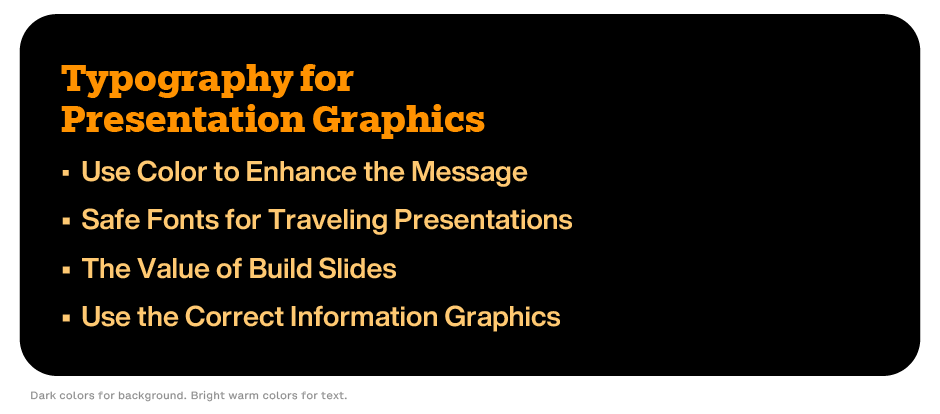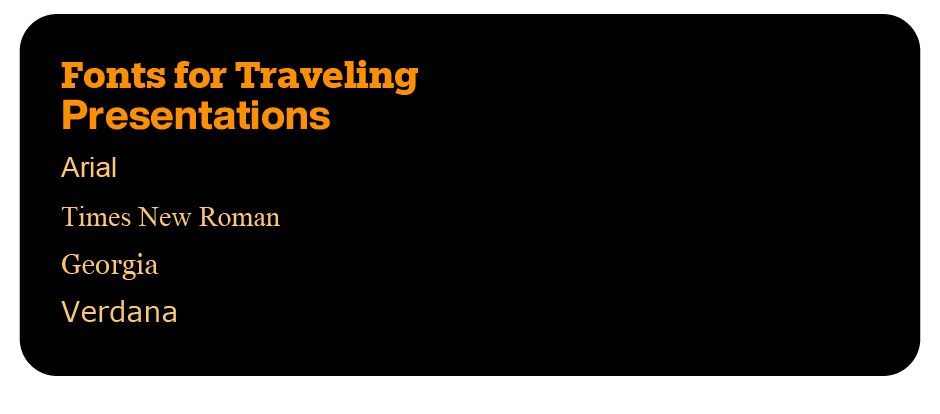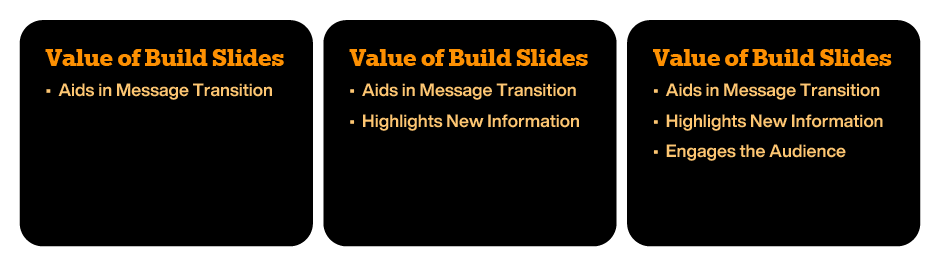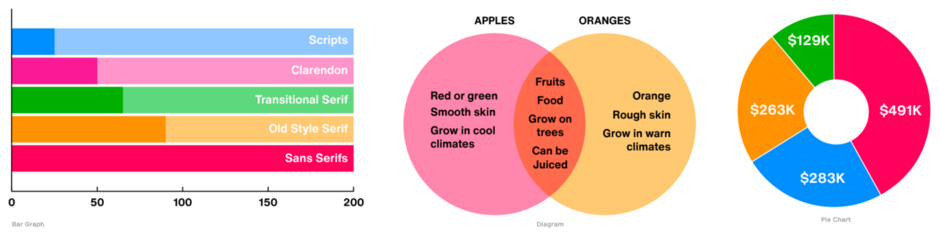
Manual: Typography for Presentation Graphics (Part Two).
“ Limit the palette to two or three colors. ”
The second half of “Typography for Presentation Graphics” addresses:
• Use of color to enhance the message
• Safe fonts for traveling presentations
• The value of build slides
• Use of the correct information graphics
Color Can Enhance A Message
Choosing colors for slides is just as important as it is for a brochure or product catalog – maybe more so. In presentation graphics, color not only invites the audience into the text, it can augment reading process and aid comprehension.
Background colors define the image-plane, while the colors used for copy should enhance readability. Use dark colors for the background and warm, bright colors for the textual content. Avoid cool colors like light blue and green for backgrounds. They tend to reduce the vitality of your presentation.
Avoid dark colors for textual content because they make it retreat into the background, and reduce contrast, necessary for good readability.
Limit the palette to two or three colors for consistency. More than that, creates visual clutter, and confusing hierarchy.
Fonts for Traveling Presentations
If you will be sending your presentation to others, or giving it on a computer other than your own, use fonts that are universally available across various operating systems and applications. This ensures consistent display in the presentation.
Common safe fonts include:
• Arial: A clean, sans-serif font known for its readability.
• Times New Roman: A classic serif font that’s widely available and professional.
• Georgia: A serif font designed for screen readability.
• Verdana: A sans-serif font specifically designed for clarity at smaller sizes.
Value of Build Slides
A build slide starts with the first major bullet point and shows more major bullet points as the presentation proceeds. This helps to make the transition from one point to the next, and highlights the new content.
Transitions in a build slide can appear in a variety of ways. They should not, however, overpower or distract from the message.
Use The Correct Information Graphics
Diagrams and graphs also help to make complicated information simple to assimilate. They should, however, only be used to illustrate main points, and must be easy to understand at a glance. Overused or complicated graphics can hinder the communication process.
Use the right kind of information graphic:
• Diagrams show structure
• Pie charts show parts of a whole
• Tables and bar graphs show relationships
Design for presentations can be as challenging and demanding of as any project you might run up against. It can also be some of the most rewarding. Rarely will you be able to witness such instantaneous approval, reward, and validation of your efforts.